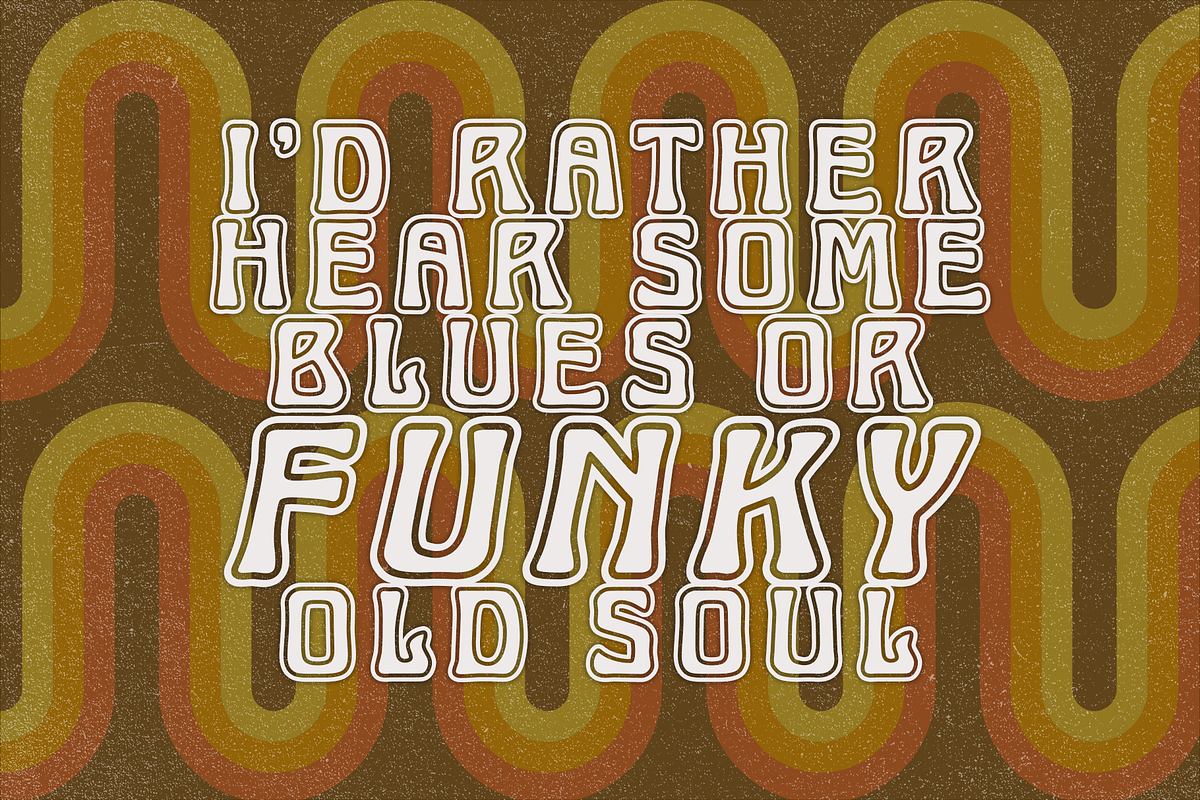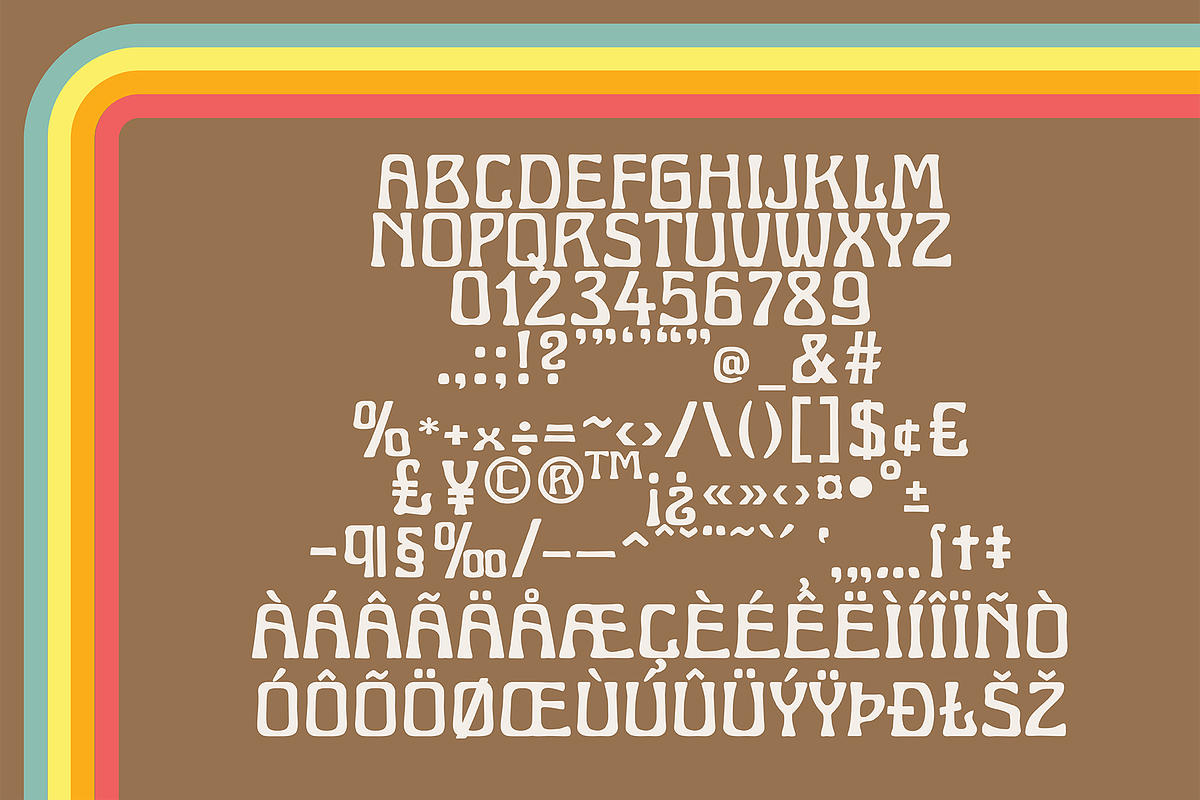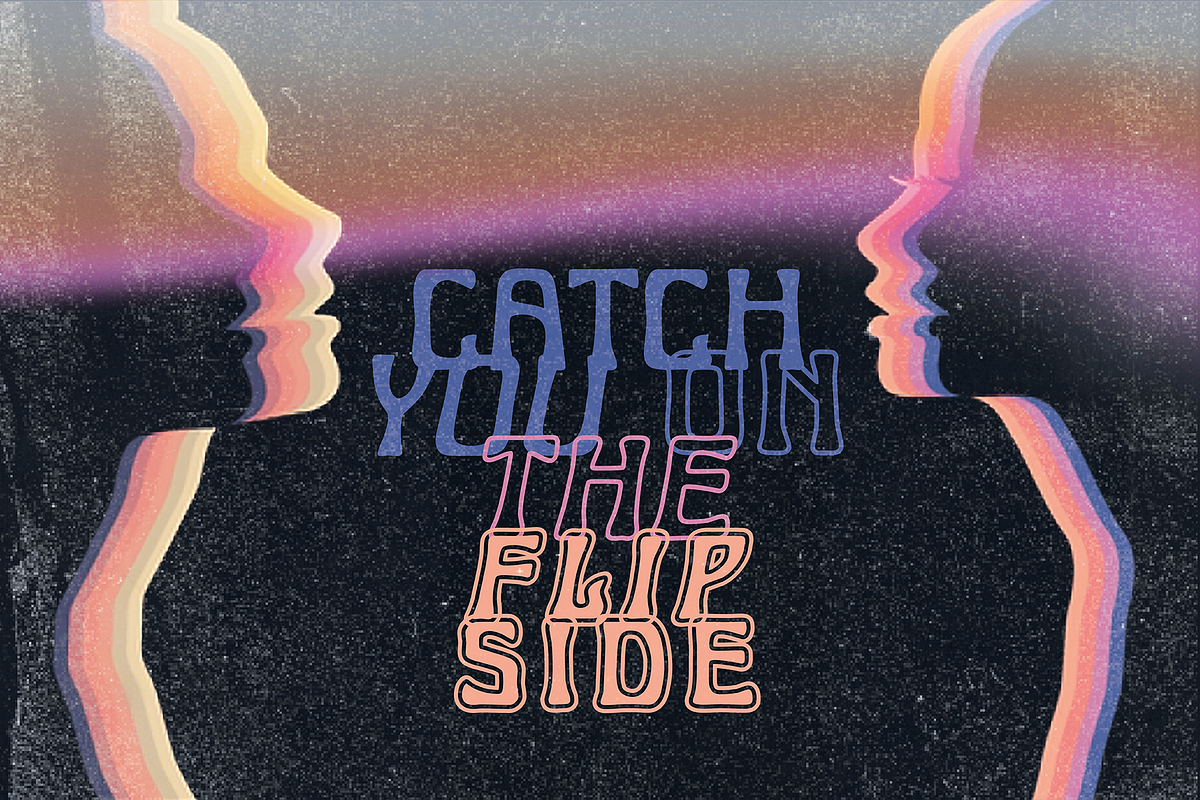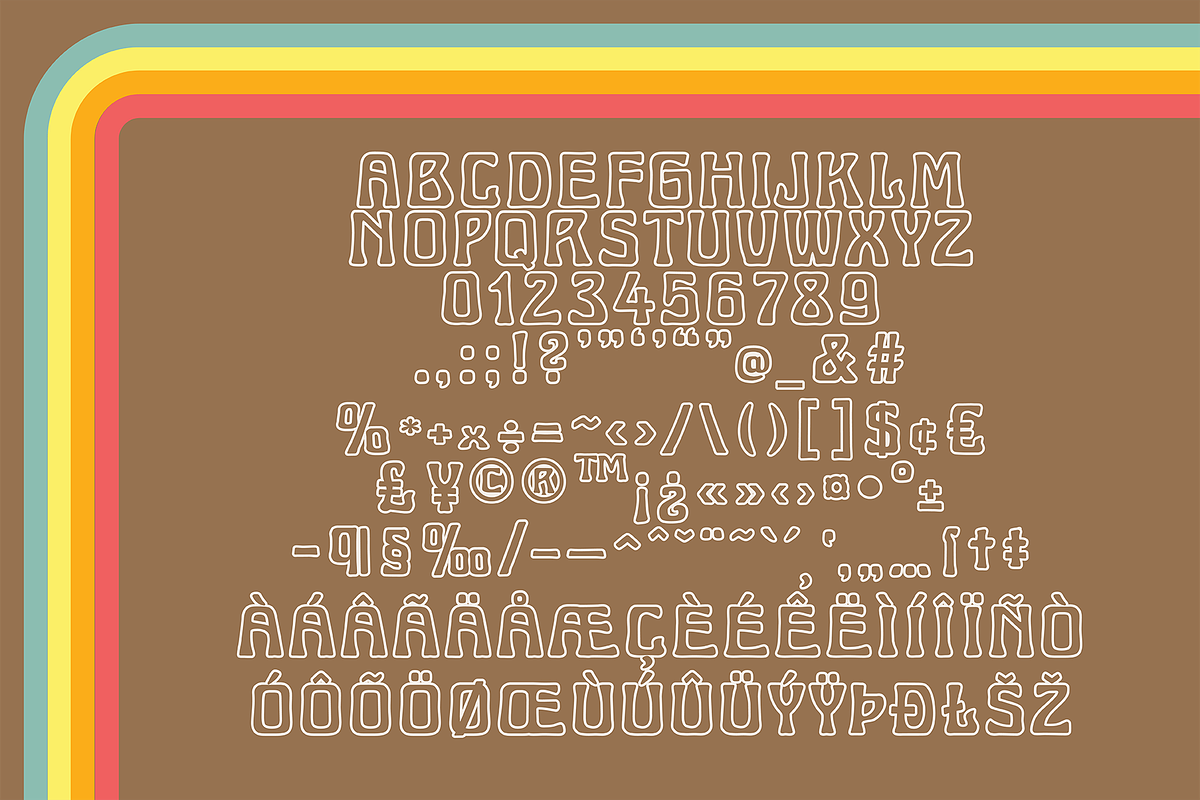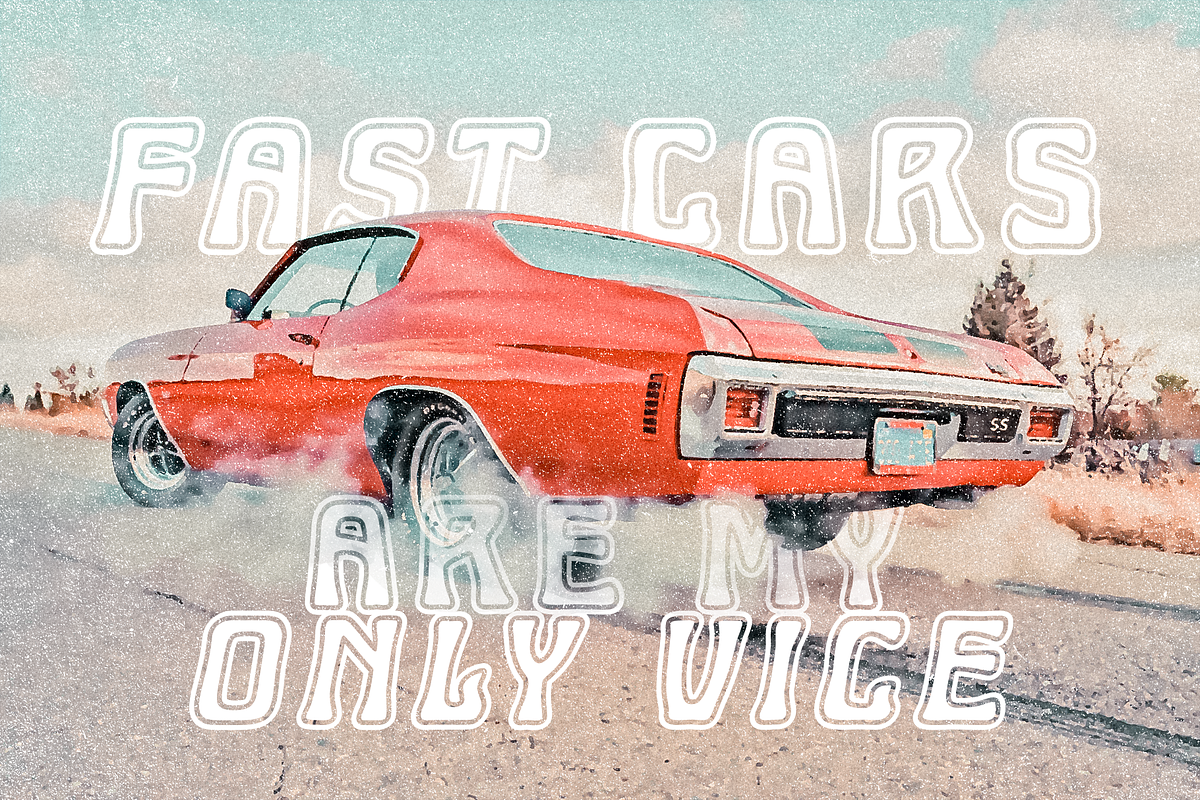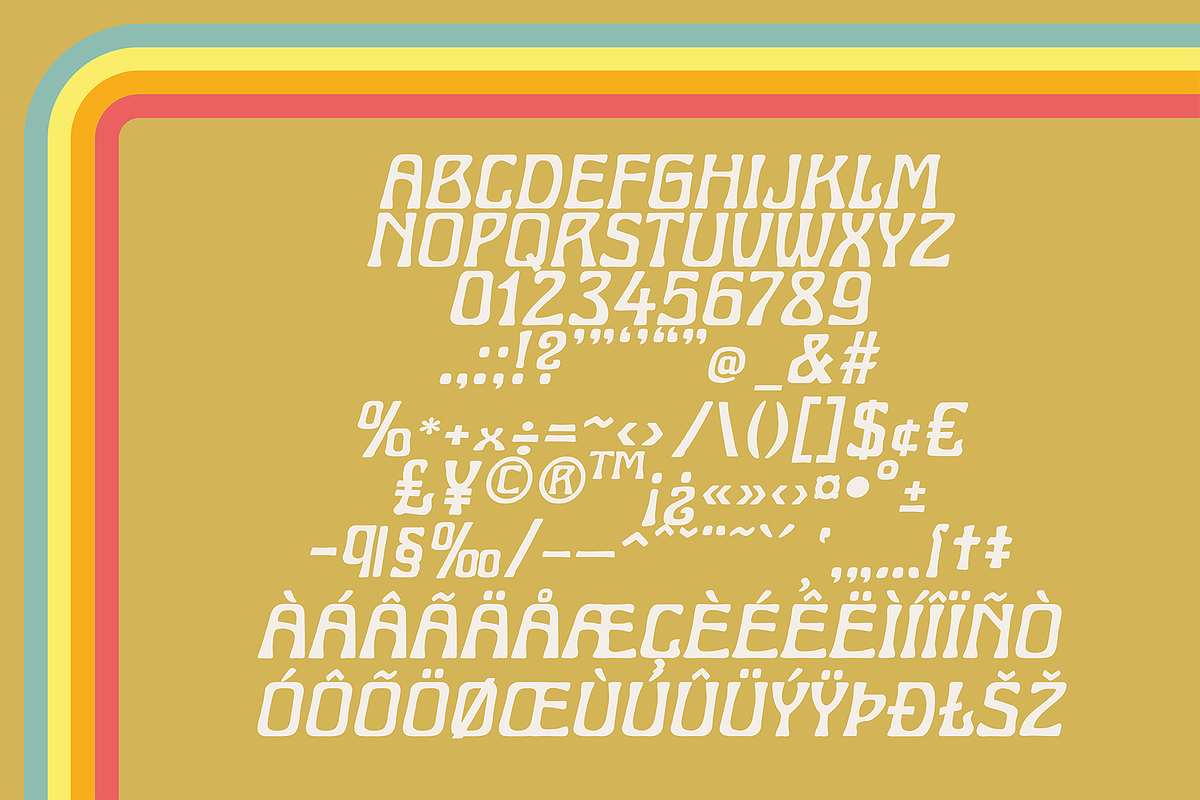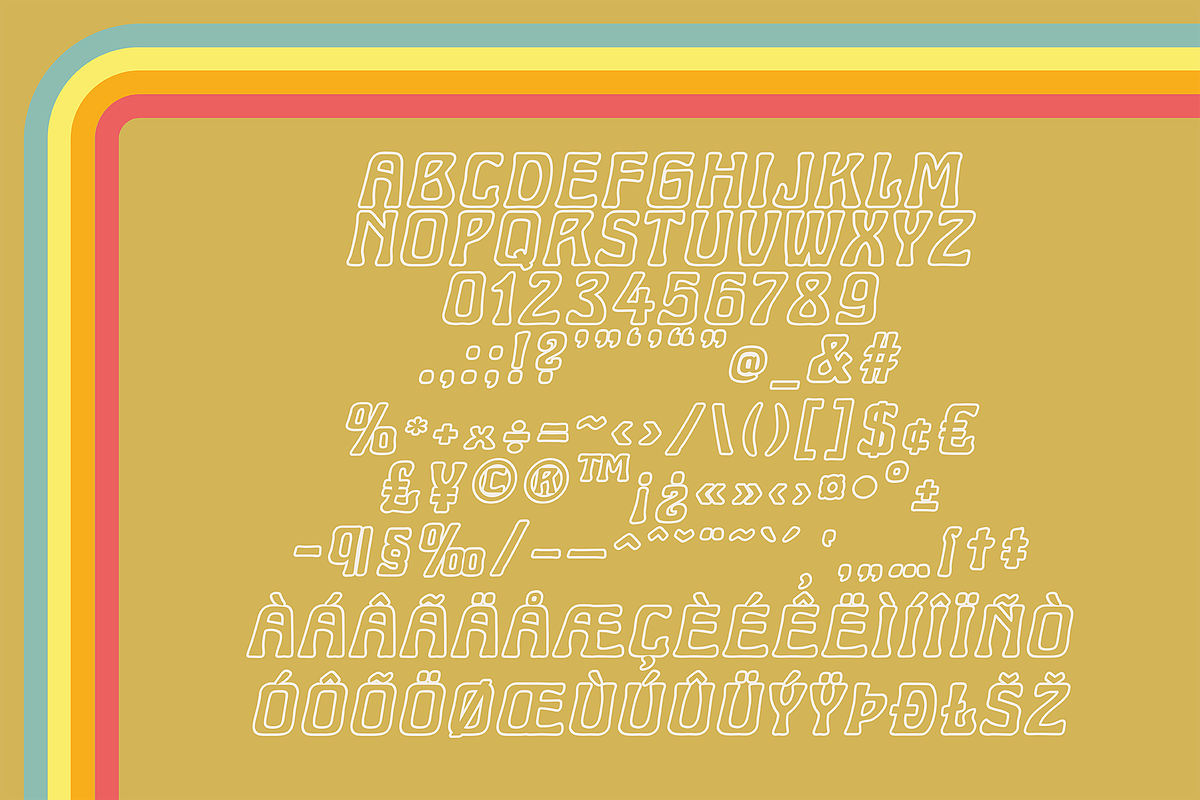
Introducing Boogie Down a 70s inspired all-caps retro font.
Boogie Down comes in 6 versions: • Regular • Regular Italic • Solid • Solid Italic • Outline • Outline Italic
Language support includes : English, Danish, French, German, Spanish, Swedish and Swiss German.